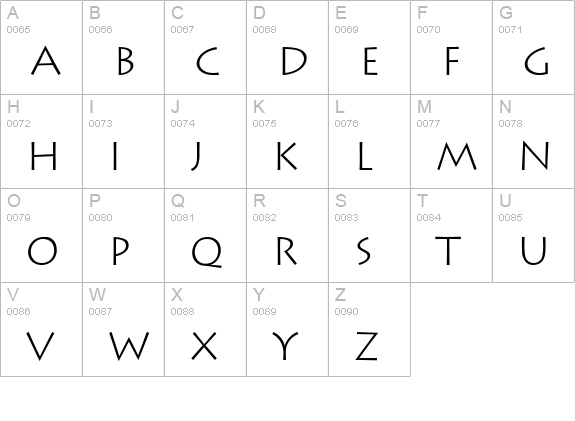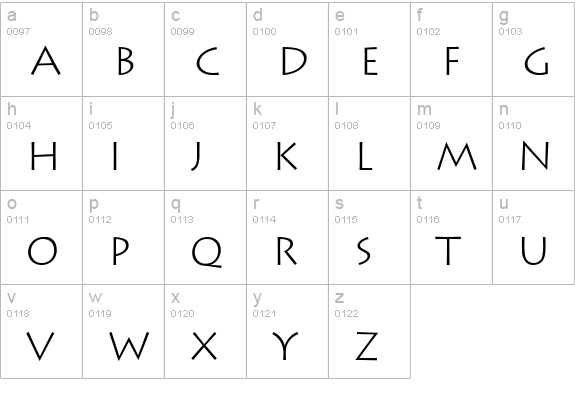
Lithos Font Details
Lithos font is a modern and stylish typeface that exudes sophistication and elegance. Its clean lines and sharp edges make it perfect for projects that require a sleek and professional look. The geometric design of Lithos font gives it a contemporary feel while still maintaining a sense of timelessness. One of the best things about Lithos font is that it is available for free! You can easily download this versatile font at FontsMarket.com and use it in a wide range of design projects. Whether you're creating a logo, designing a website, or working on a print project, Lithos font is sure to make a statement. With its bold presence and unique aesthetic, Lithos font is a must-have for any designer looking to elevate their work. Add a touch of sophistication to your projects with this free and versatile typeface.